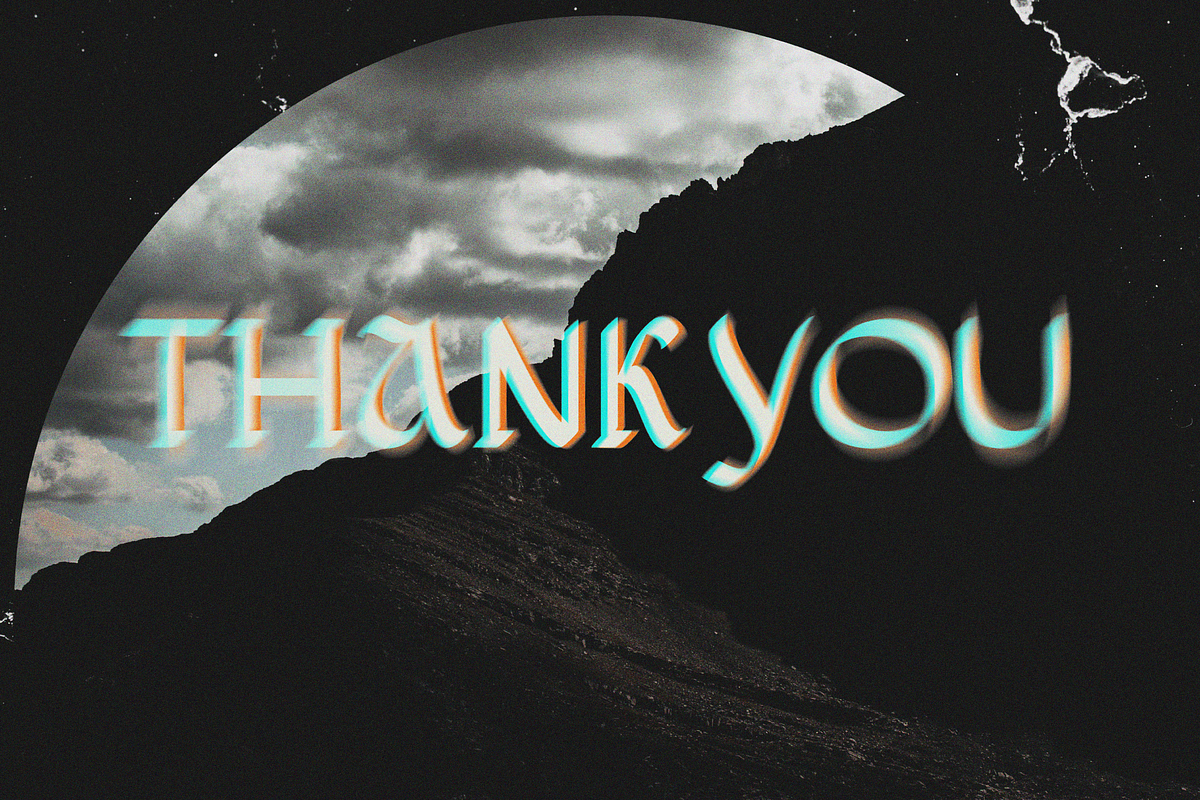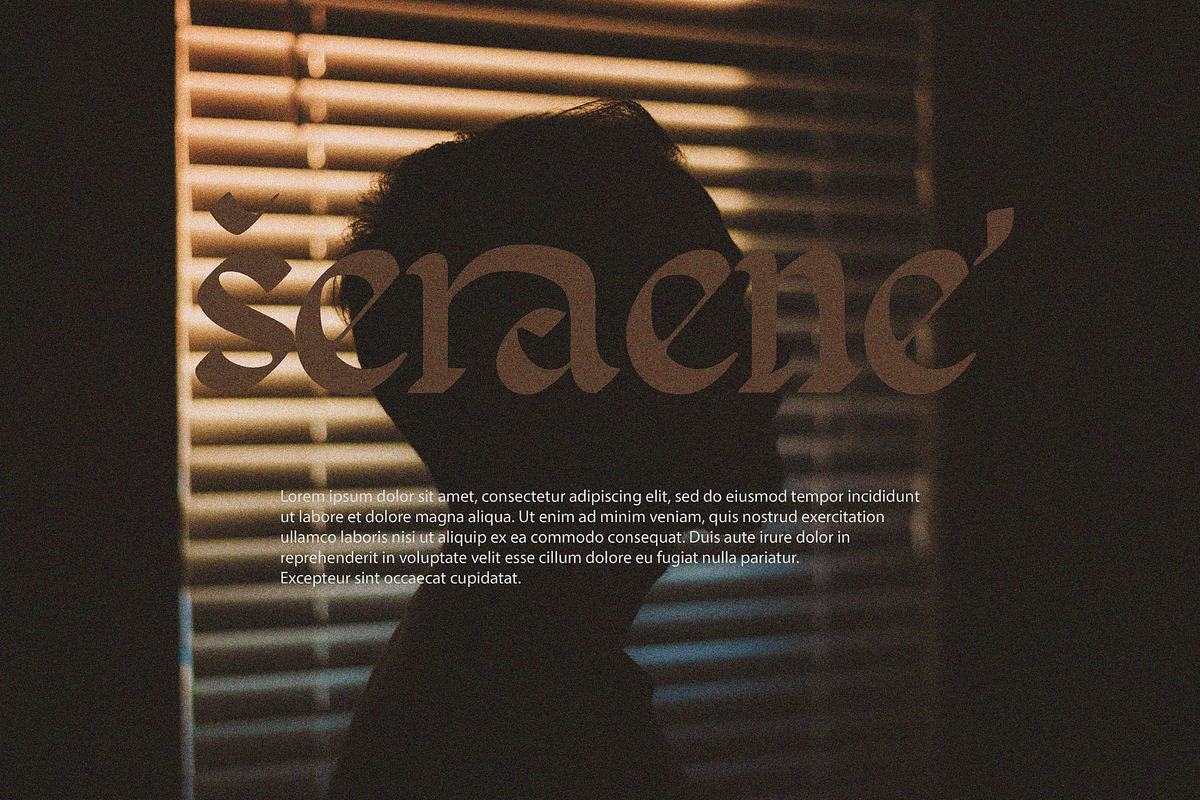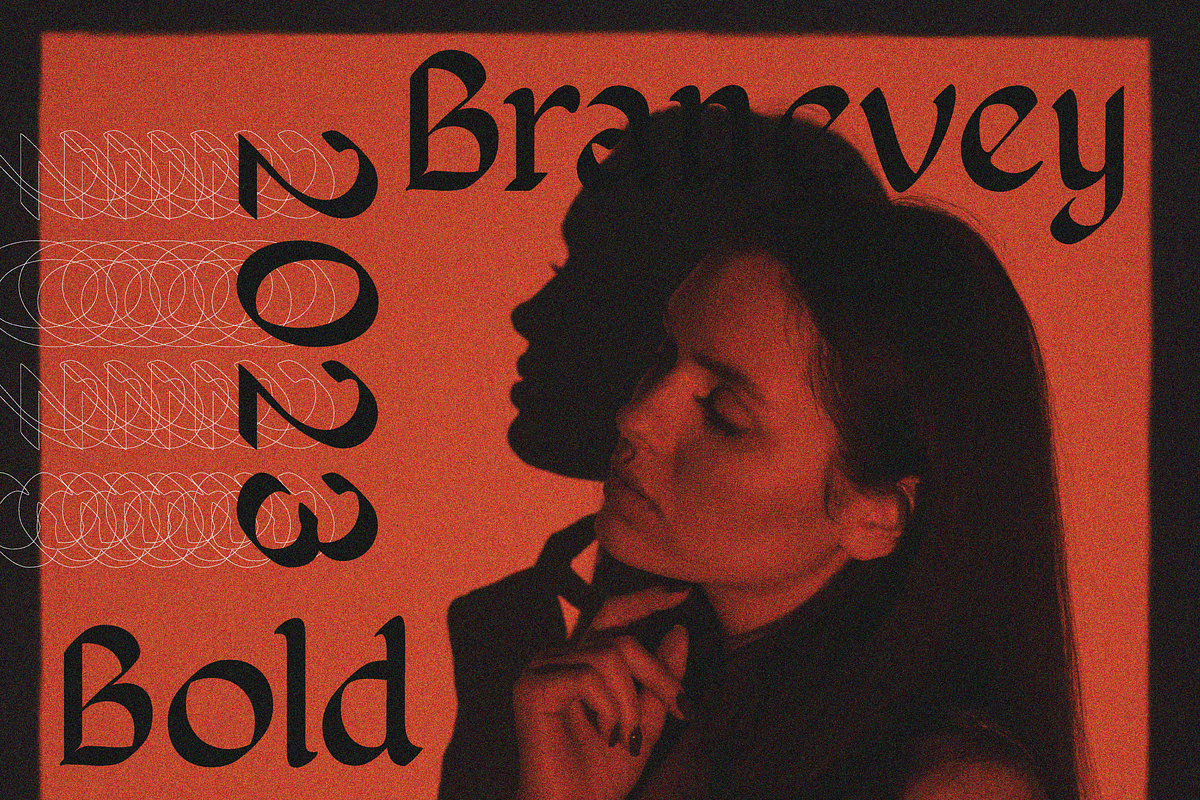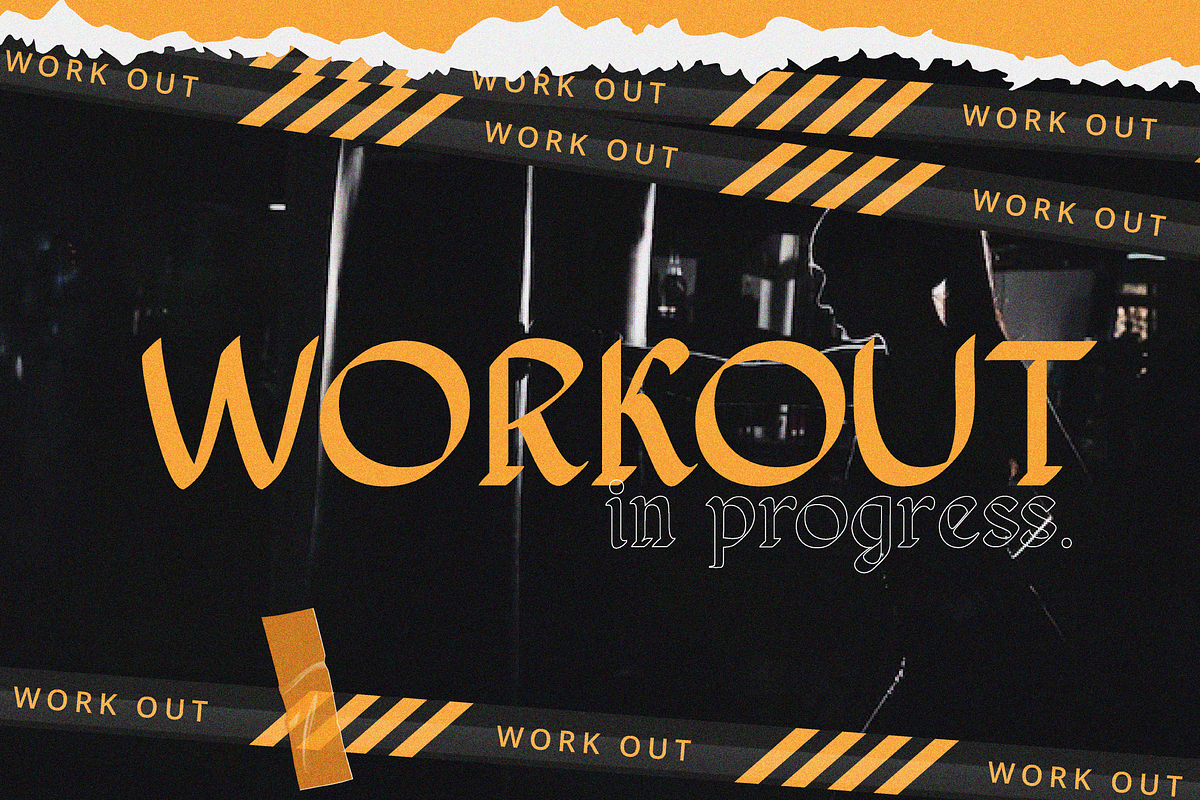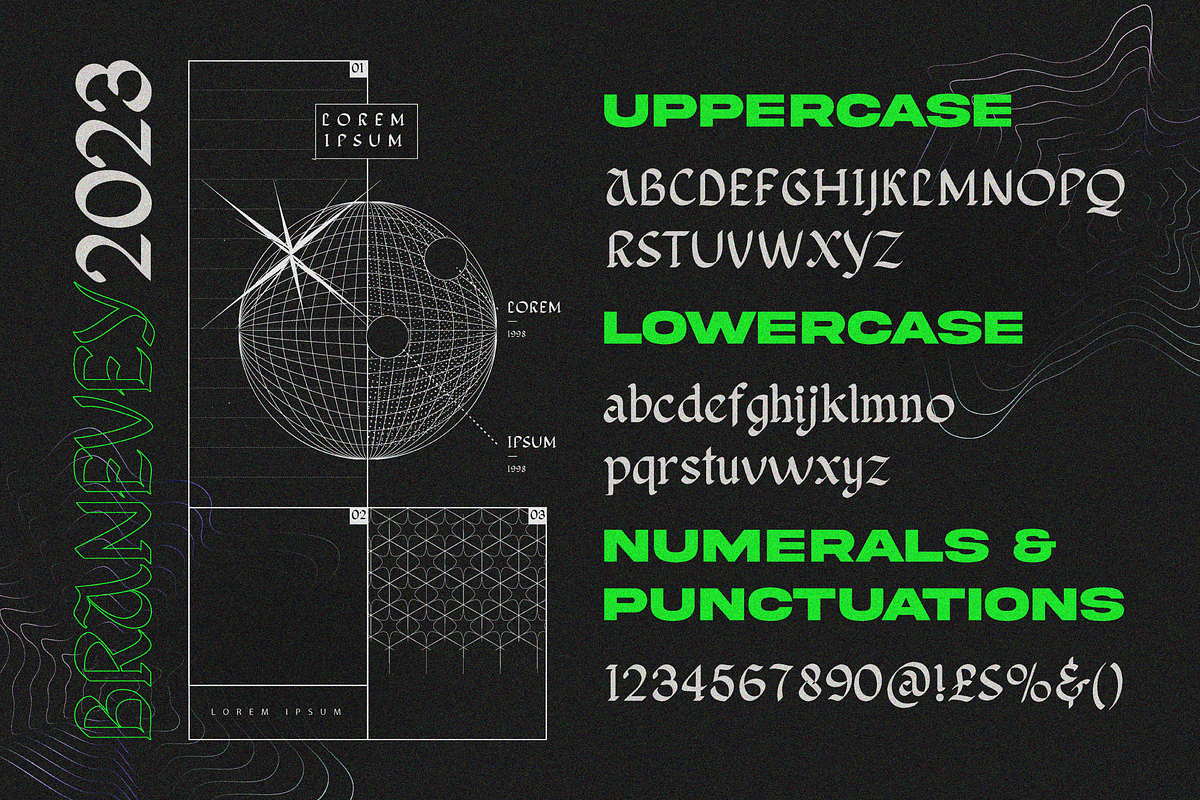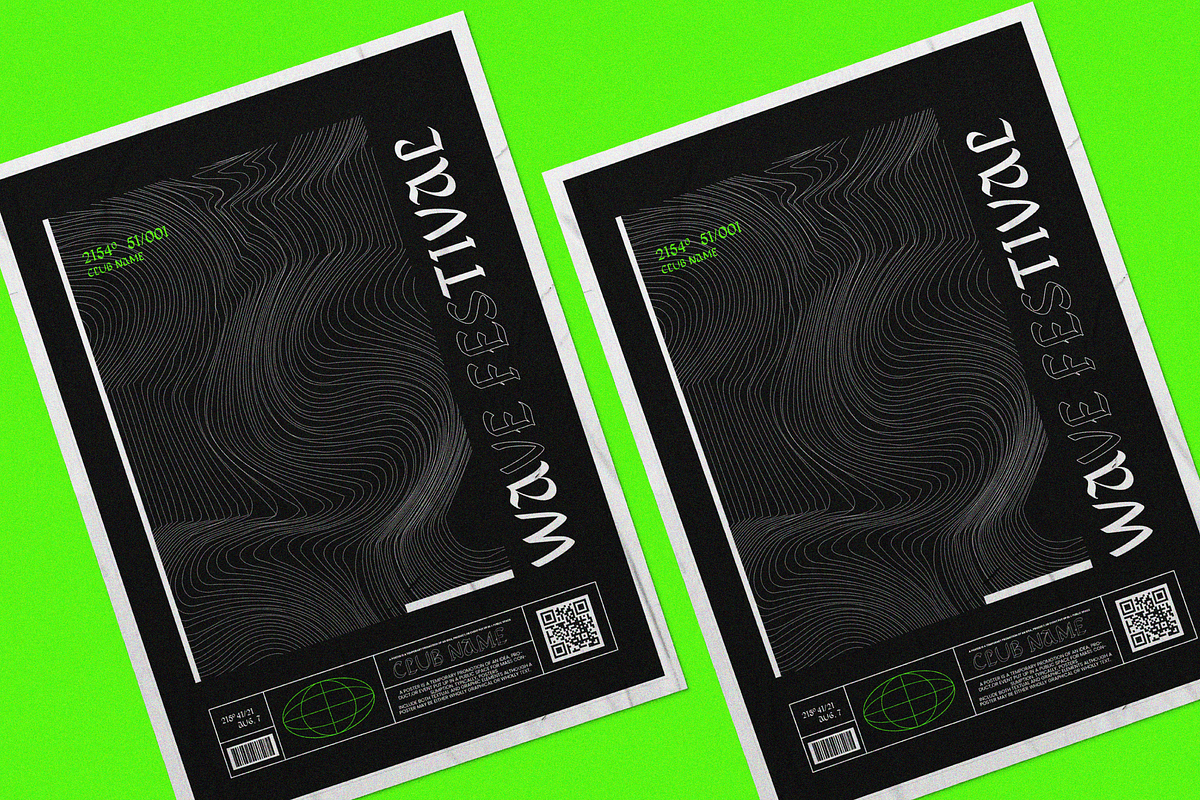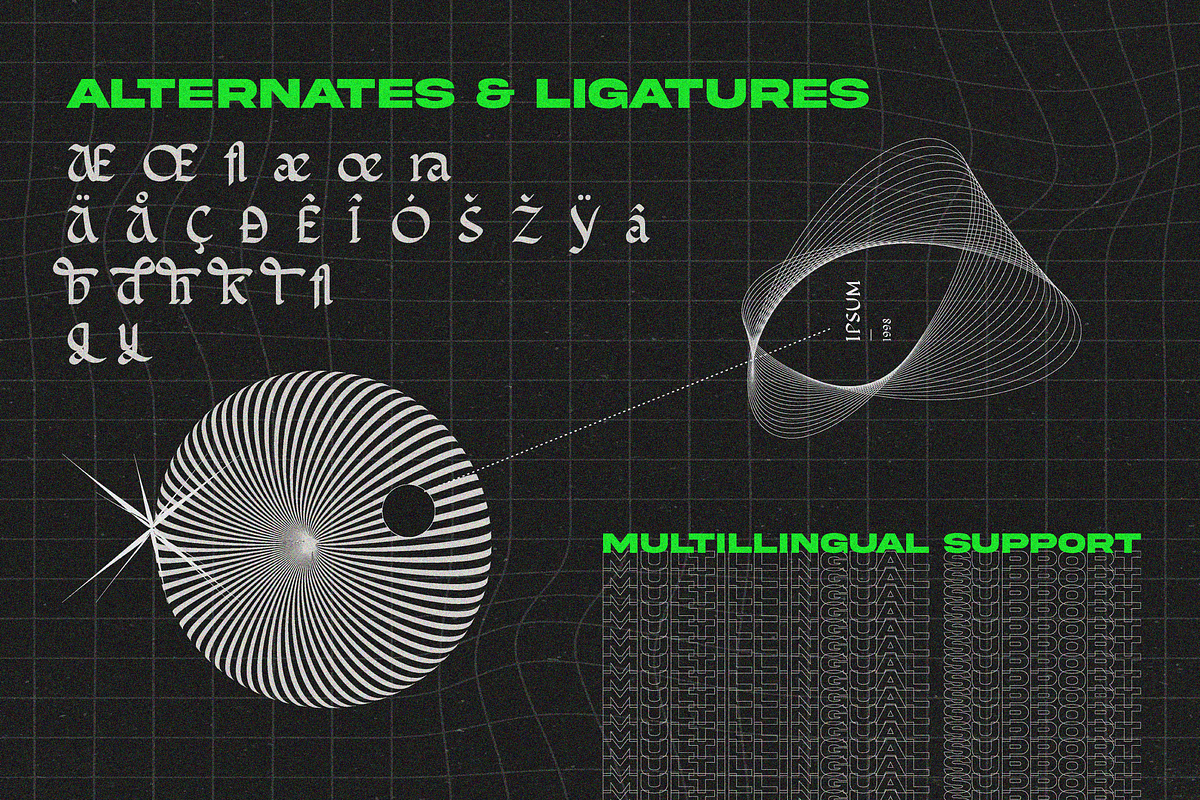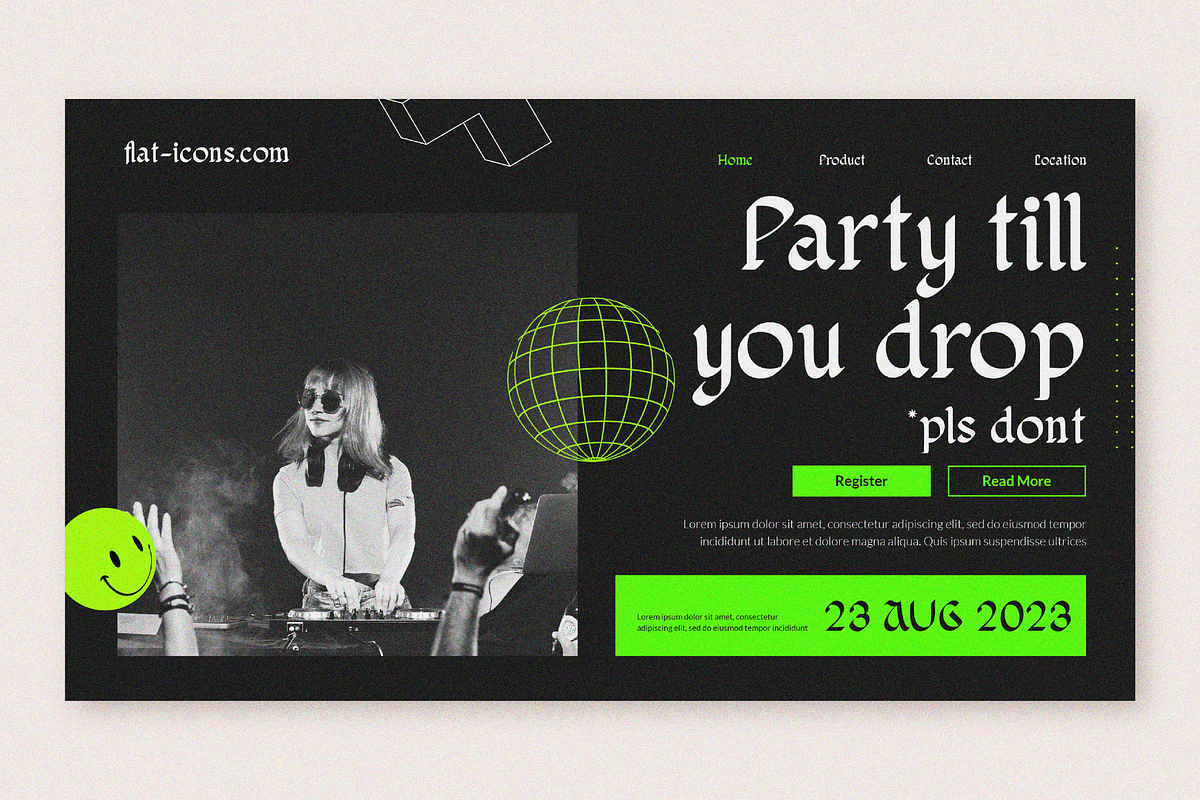
Blackletter Typeface Font
Looking for some style and sophistication for your brand image? We have the perfect solution for you.
Introducing Branevey - A Blackletter Typeface Font.
Whether crafting logos or enhancing digital/print materials, Branevey leaves an indelible mark. With its unique charm, this font will infuse your brand with timeless sophistication. Enjoy!
- Multilingual & Ligature Support
- Full sets of Punctuation and Numerals